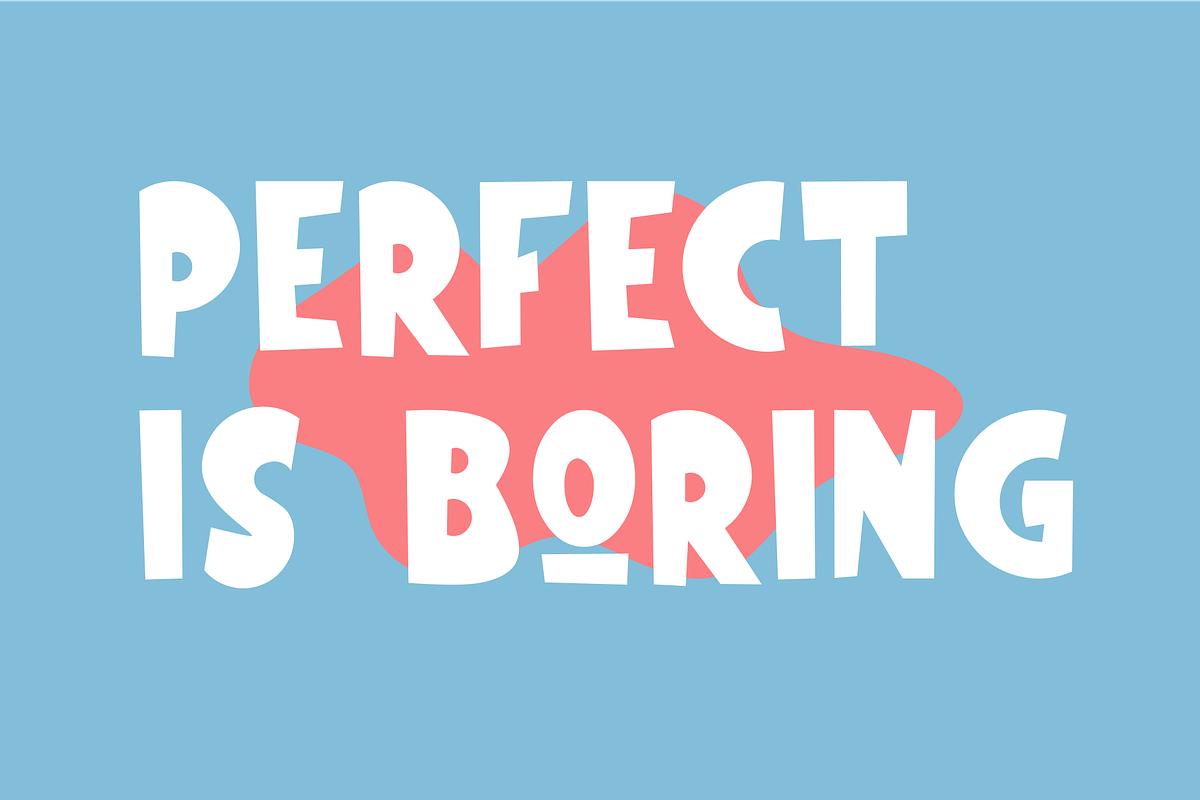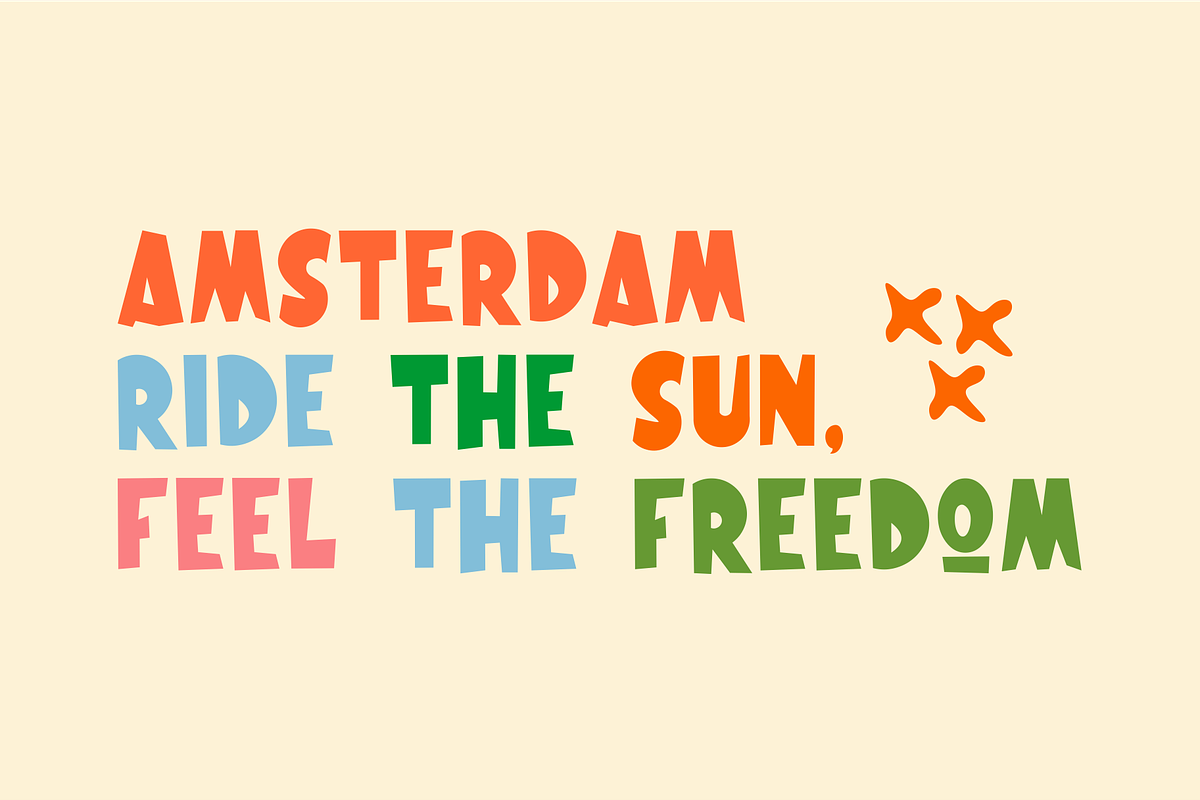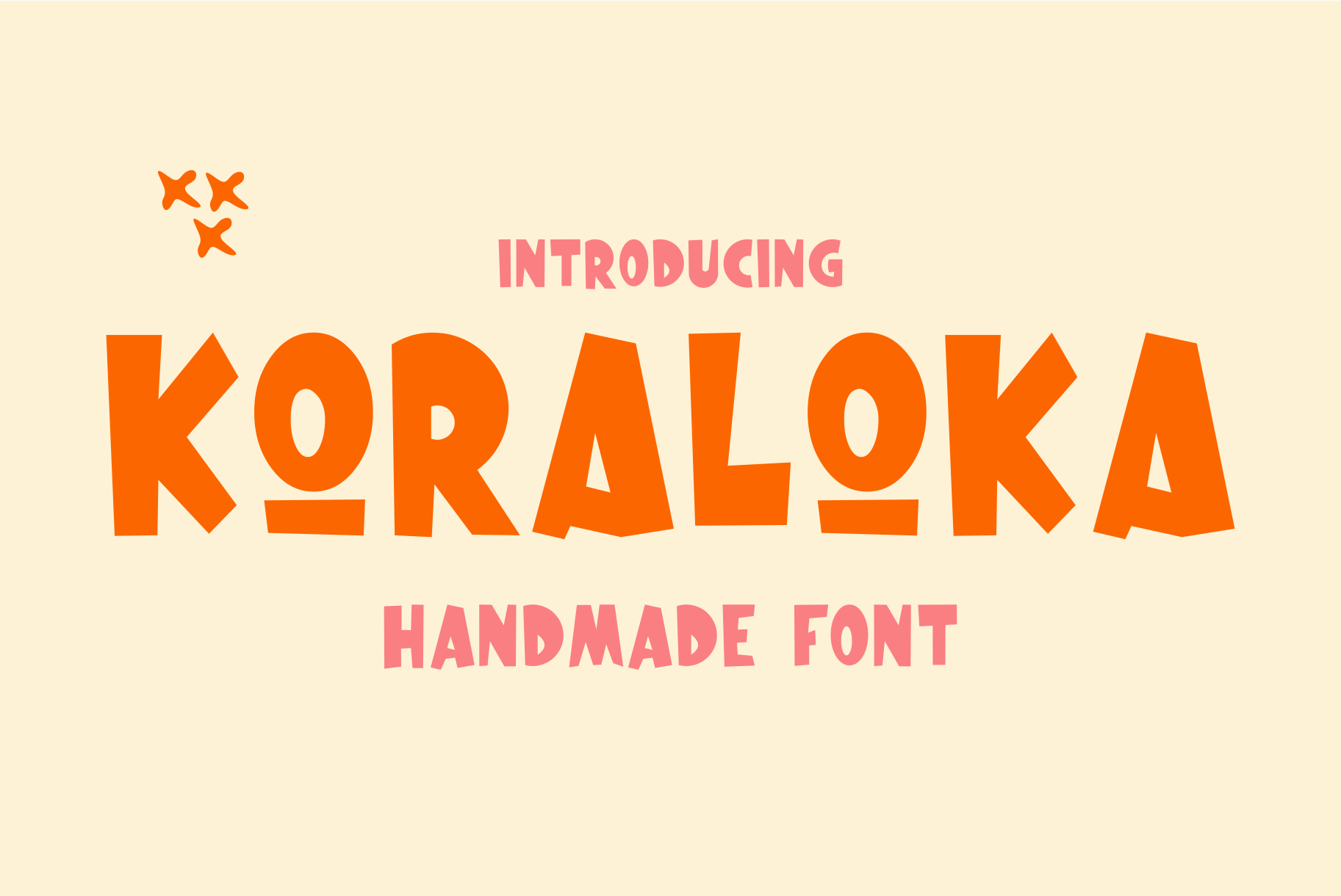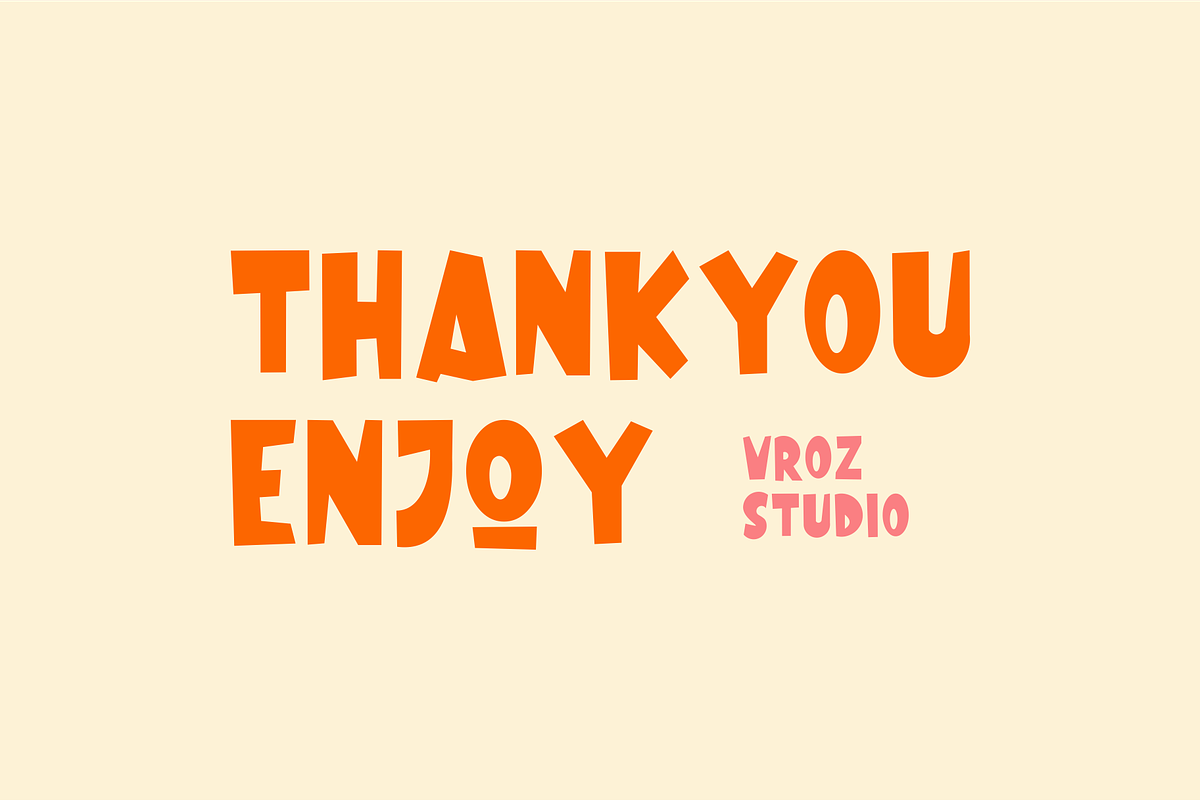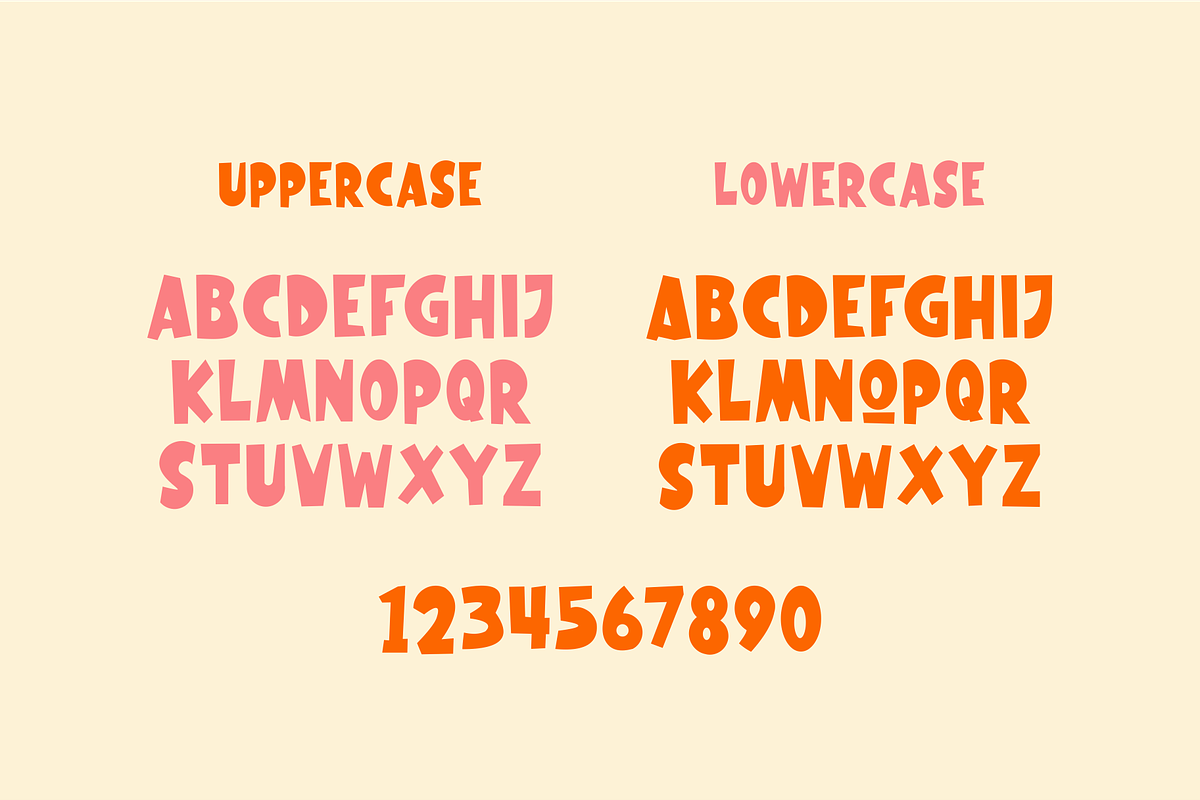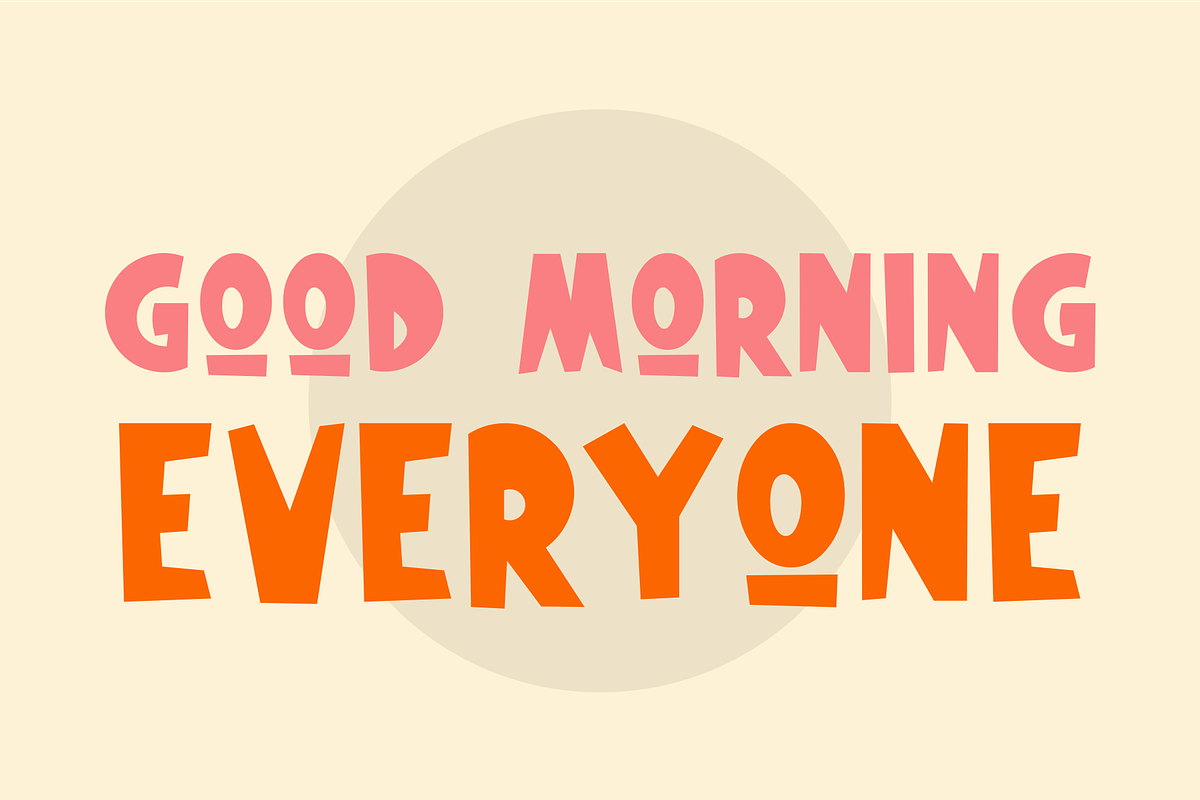
KORALOKA -Handmade Dispaly Font
Hello Creative People! Introducing Koraloka – A Unique Handmade Font created with a personal touch to bring character and authenticity to your designs. Koraloka embraces a natual, hand-crafted flow that feels organic yet stylish.
Perfect for logos, posters, product packaging, invitations, branding projects, quotes, signage, and social media graphics—this font adds a warm and human charm to any creative work.
✨ Add a handmade soul to your design with Koraloka, and let every word feel more alive!